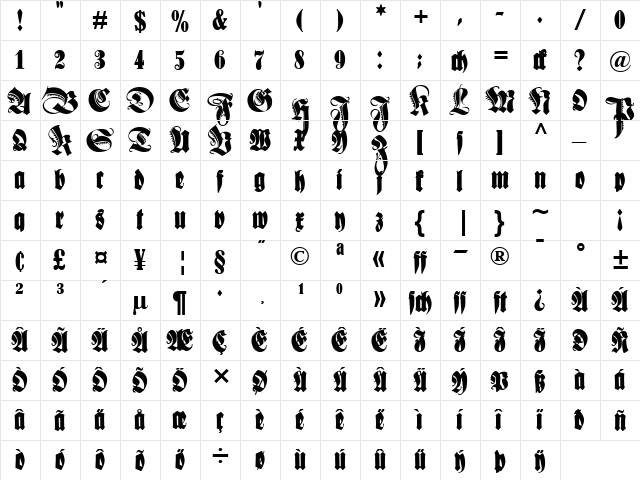
Schmale Anzeigenschrift Zier Regular
| Designer | Dieter Steffmann |
| Copyright | Copyright (c) Typographer Mediengestaltung, 2002. All rights reserved. Zierbuchstaben zur Schmalen deutschen Anzeigenschrift von Prof. Rudolf Koch, geschaffen 1916-1923. Digitized, hinted and completed by Dieter Steffmann, Kreuztal |
Design Context for Schmale Anzeigenschrift Zier Typeface
Schmale Anzeigenschrift Zier is a composed and adaptable typeface that performs quietly and consistently across a wide range of design contexts.